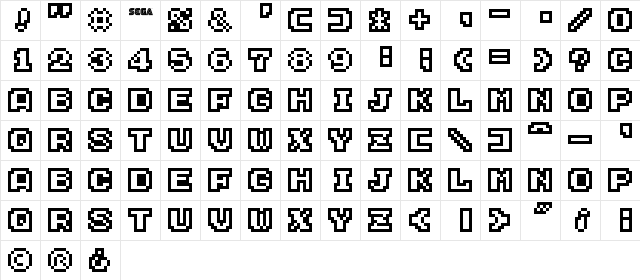
Service Games Oldskool Outline Outline
Design Context for Service Games Oldskool Outline Typeface
Service Games Oldskool Outline is built around its visual character rather than neutral utility — its distinctive forms are designed to make an impression at display sizes.
Font Pairing: Pair with a clean neutral sans-serif for body copy to let Service Games Oldskool Outline's character lead without overwhelming the composition.
Pro Tip: Use Service Games Oldskool Outline exclusively at display sizes — it was designed to be seen, not read at length. Let a neutral companion handle body copy.